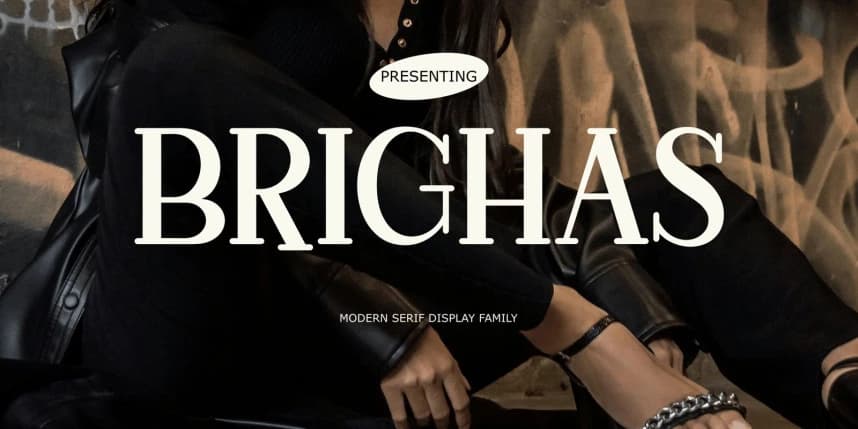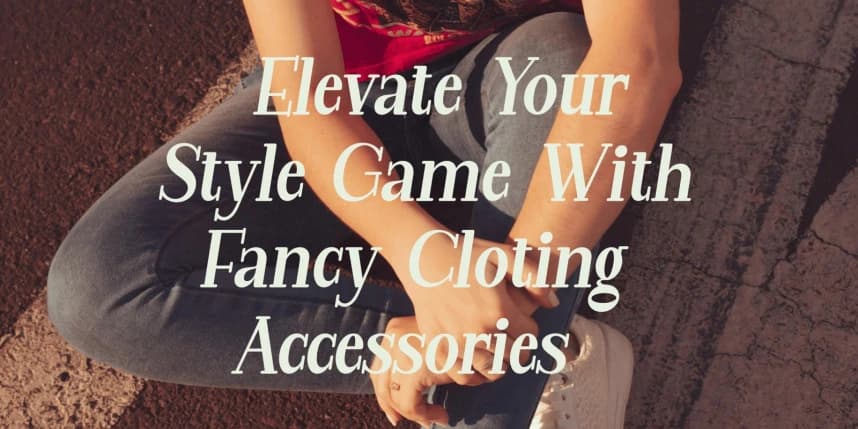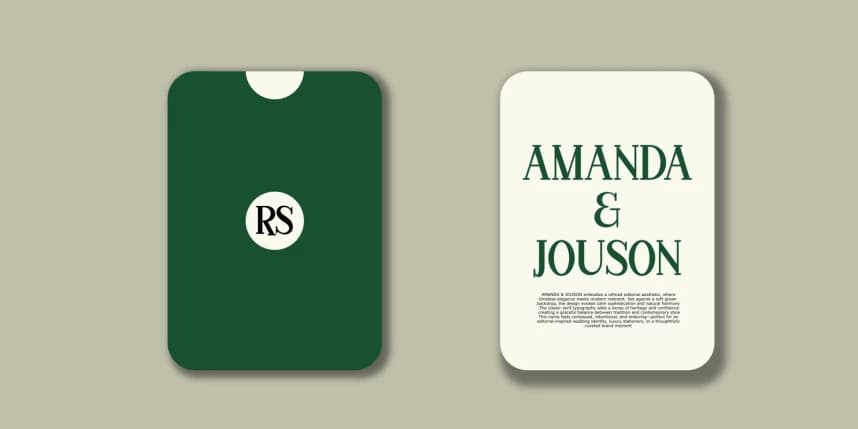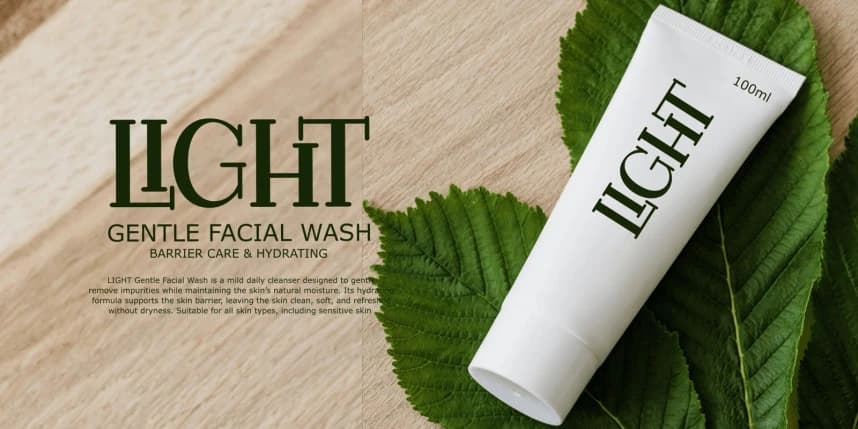
Brighas Font
Brighas Font is an elegant serif font that blends classic character with a modern touch. Designed with balanced proportions and refined serif details, Brighas delivers a luxurious, professional, and sophisticated impression.